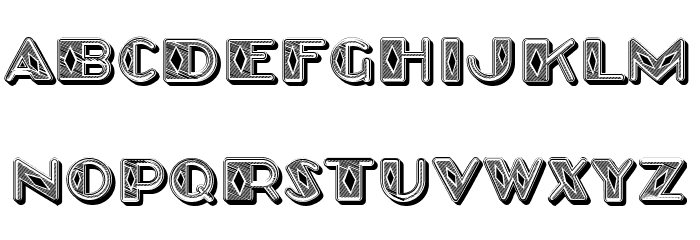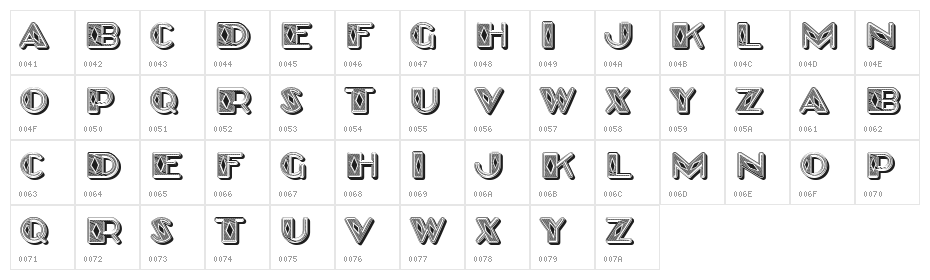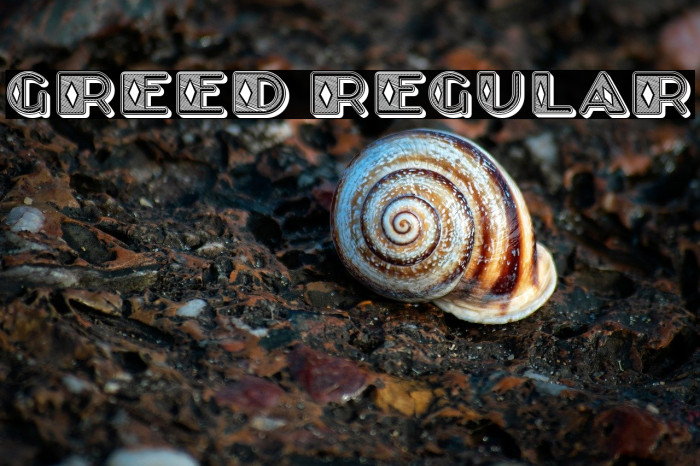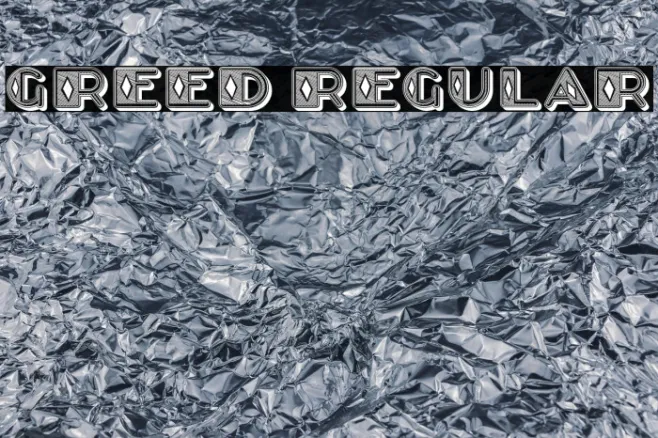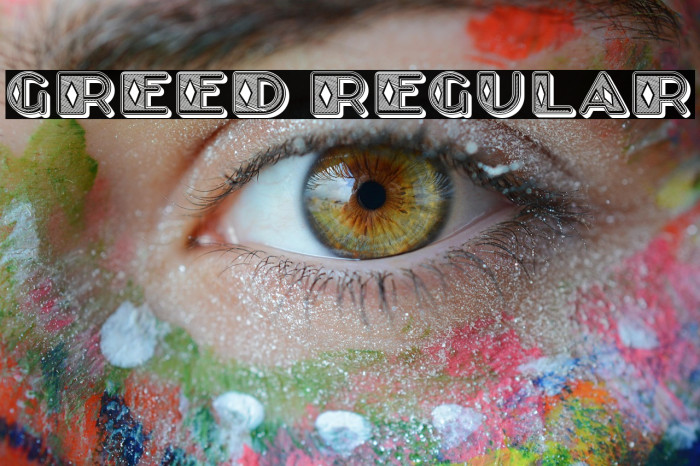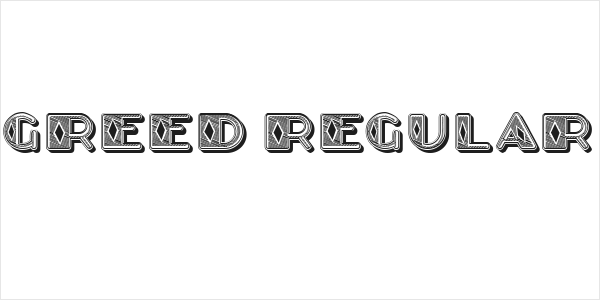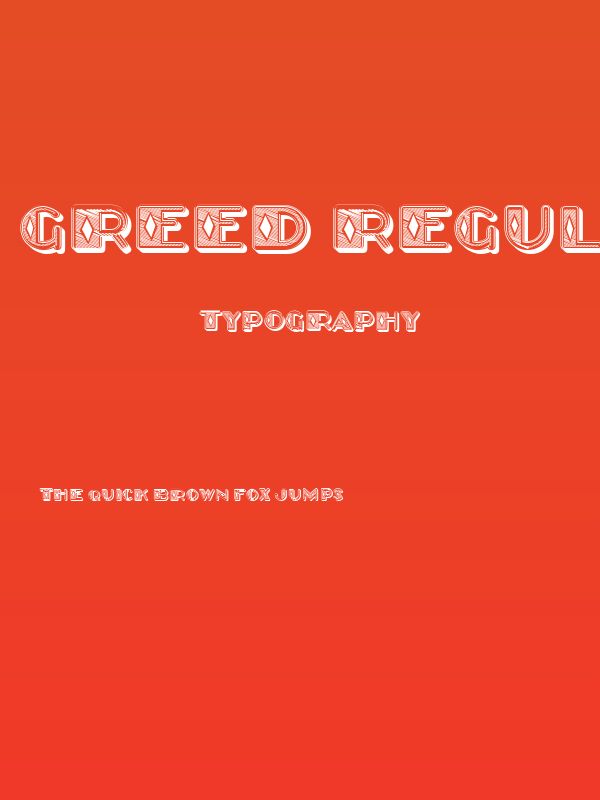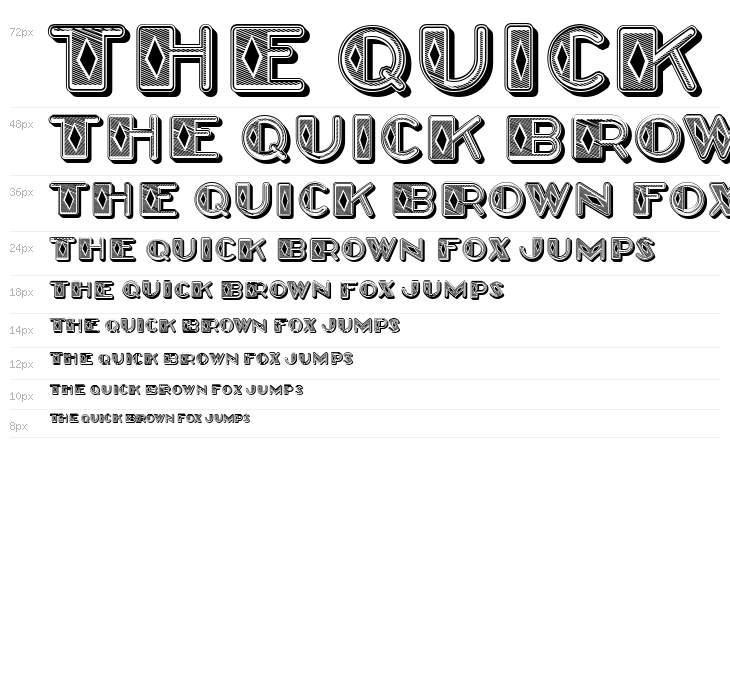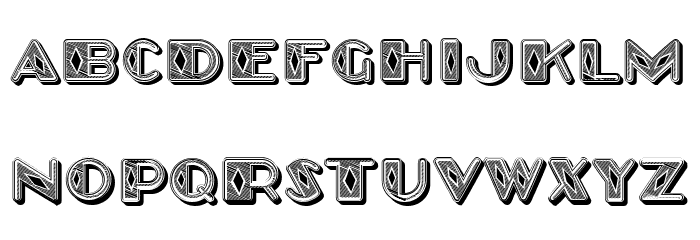
Greed Regular Font
Greed Regular Description
This font features a bold and decorative style with intricate patterns and geometric shapes within each letter. The uppercase letters are designed with a strong presence, showcasing a unique blend of modern and vintage aesthetics. The font's detailed interior design adds a layer of complexity, making it stand out in any design project. The characters are well-defined with a consistent stroke width, providing a balanced and harmonious look. The overall appearance is eye-catching and suitable for creative and artistic applications.
| Overall Style | Modern, Vintage |
| Proposed Projects | Ideal for posters, branding, album covers, and any project requiring a striking visual impact. |